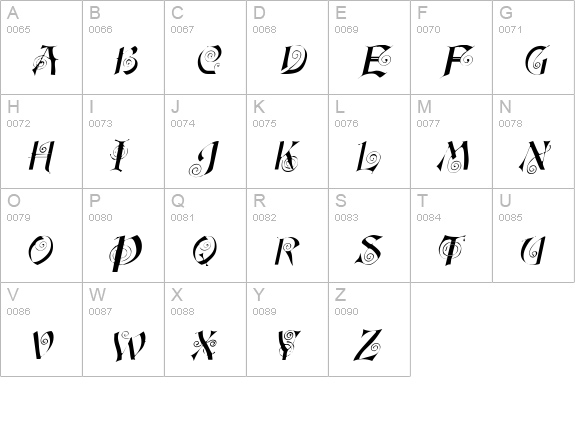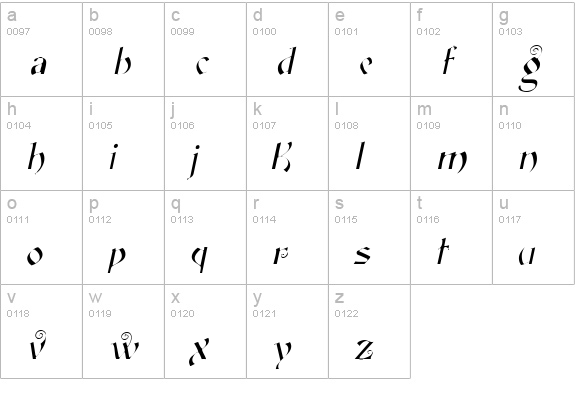
FairyScrollDisplay Italic is a distinctive, italic variant in the FairyScrollDisplay typeface family \xE2\x80\x94 well suited to design and typography projects.
FairyScrollDisplay Italic font is a whimsical and elegant typeface that brings a touch of magic to any design project. Its delicate curves and flowing lines create a sense of enchantment, perfect for adding a fairy-tale feel to your work. The italic style adds a dynamic and graceful touch to the text, making it ideal for invitations, greeting cards, and other creative projects. What's even more enchanting is that FairyScrollDisplay Italic font is available for free download at FontsMarket.com. This means you can easily enhance your designs with this beautiful font without any cost. Embrace the magic of FairyScrollDisplay Italic and let your creativity soar with this enchanting typeface.